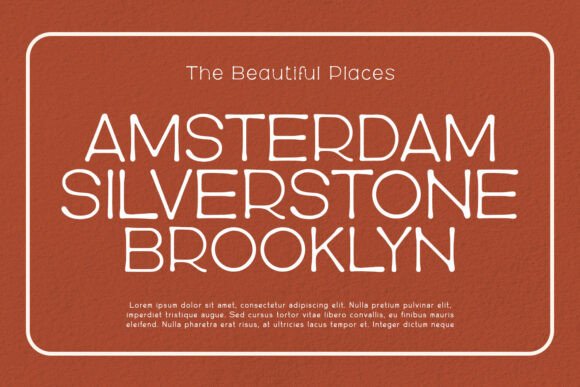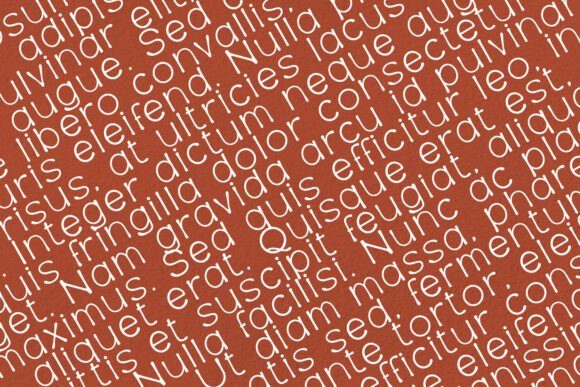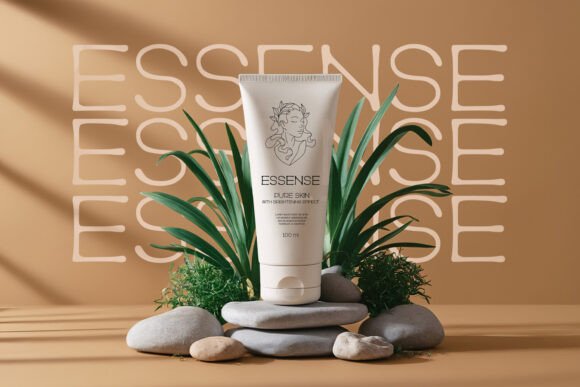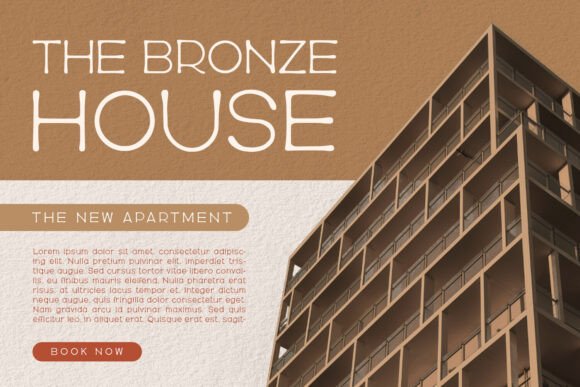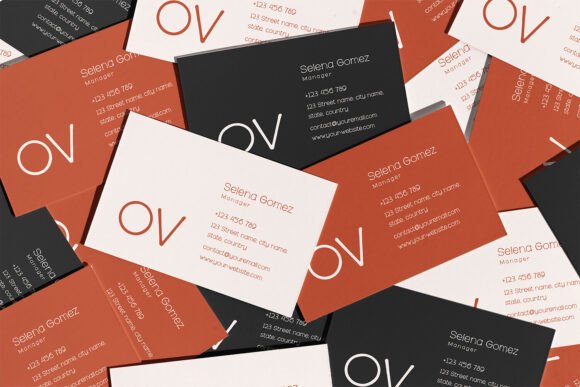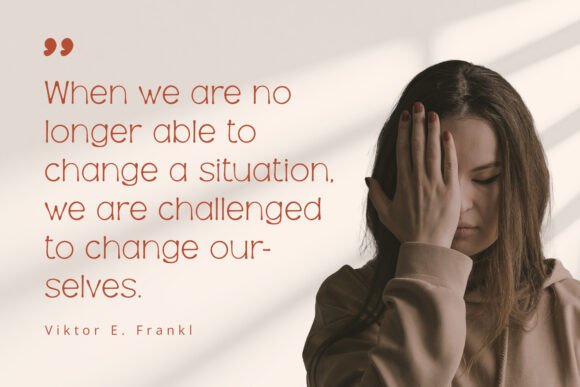
Introduction to Kejora Font
Kejora is unique sans serif font with elegant and modern feels.
It will be perfectly used for magazines, packaging, posters, shopping bags, t-shirts, book covers, photography, special events and other design projects .
Key Features of Kejora Font